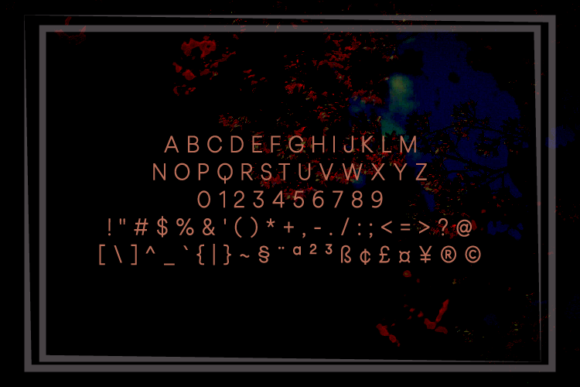
Introduction to Grilesthy Regular Font
Grilesthy is a modern and casual font with an incredibly friendly feel.
This fantastic sans serif font is best suited for headlines of all sizes, as well as for blocks of text that have both maximum and minimum variations Grilesthy comes with 10 different weights ranging from thin to extra black versions and is sold separately so that you can choose the weight that suits your design/project best.
Key Features of Grilesthy Regular Font
Why Choose Grilesthy Regular Font?
Grilesthy Regular Font offers exceptional quality and versatility, making it a valuable addition to your design toolkit. Whether you’re creating for personal projects or commercial use, Grilesthy Regular Font delivers professional results.